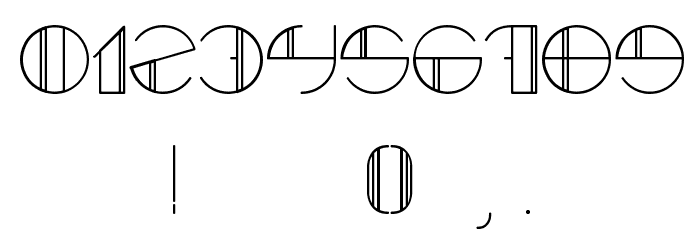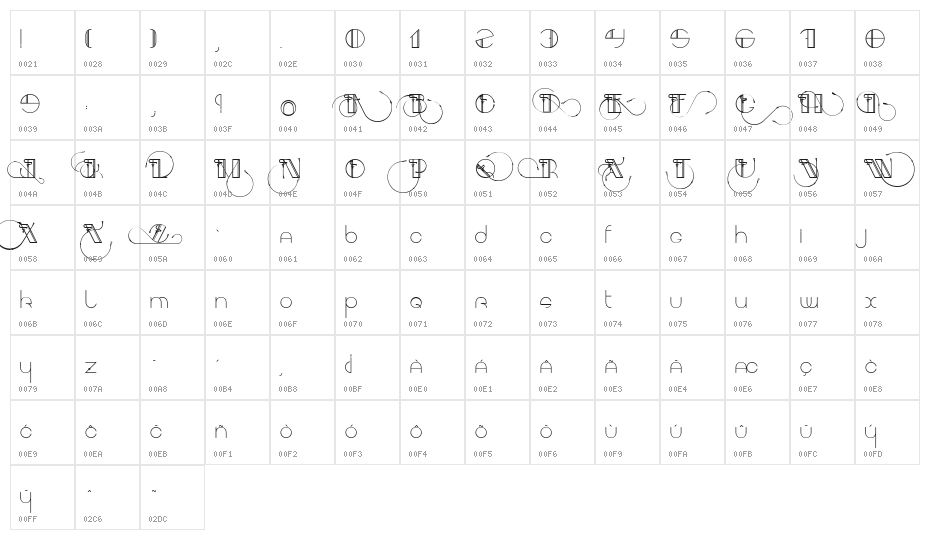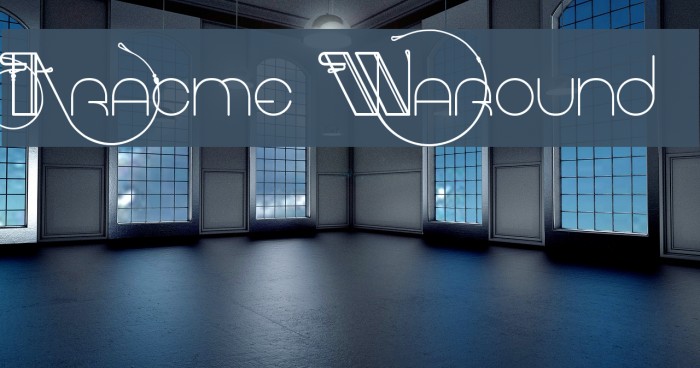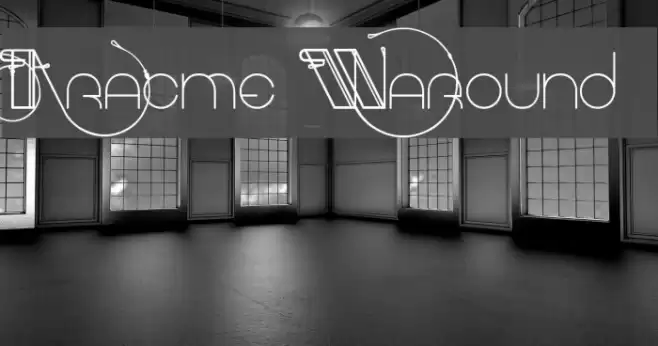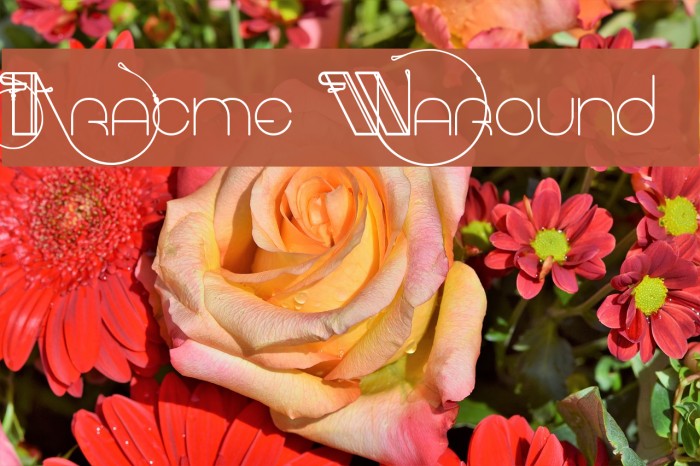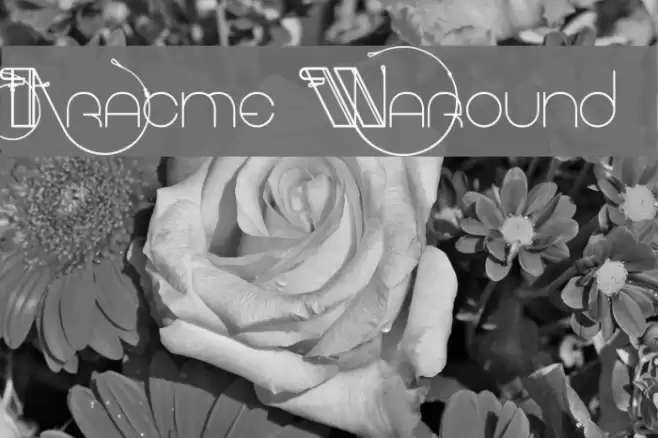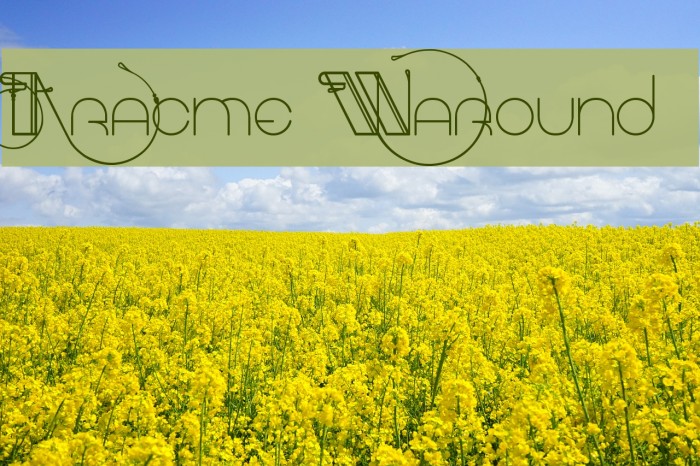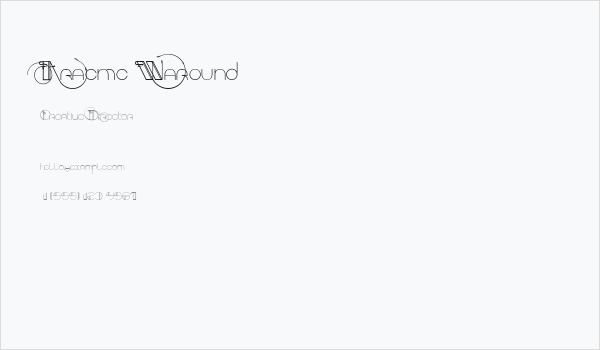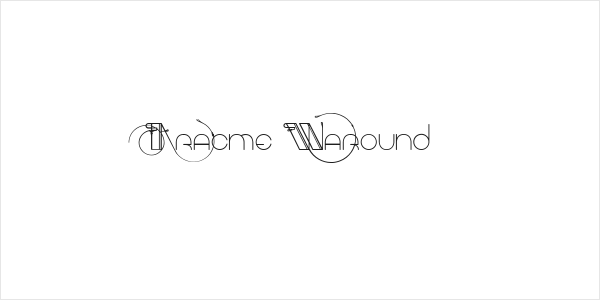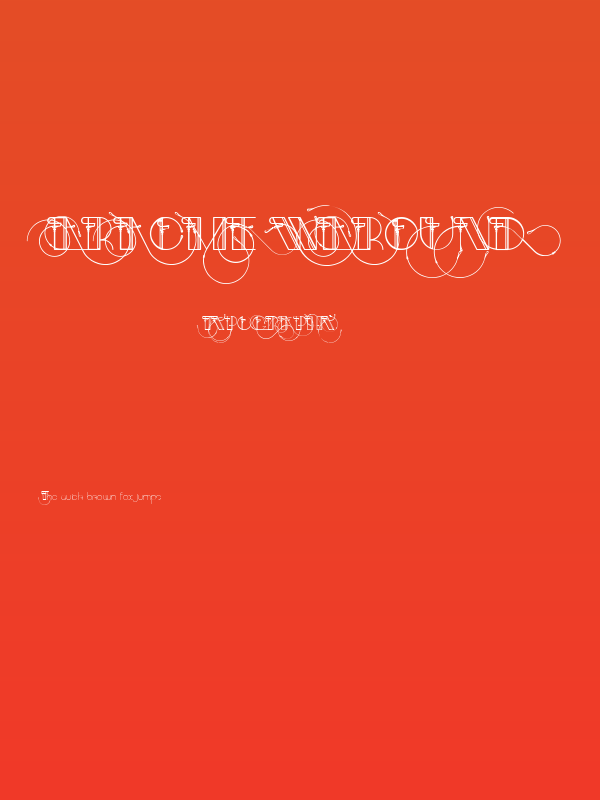
Aracme Waround Font
Aracme Waround Description
This font features an intricate and decorative design with a unique blend of geometric and flowing elements. The uppercase letters are characterized by elaborate loops and swirls, creating a sense of movement and elegance. The lowercase letters maintain a more streamlined and modern appearance, providing a contrast to the ornate uppercase. Numbers and special characters are designed with a similar geometric flair, incorporating circular and linear elements. The overall style is both artistic and sophisticated, making it suitable for creative and high-impact designs.
| Proposed Projects | Ideal for artistic projects, branding, invitations, and decorative headings. |